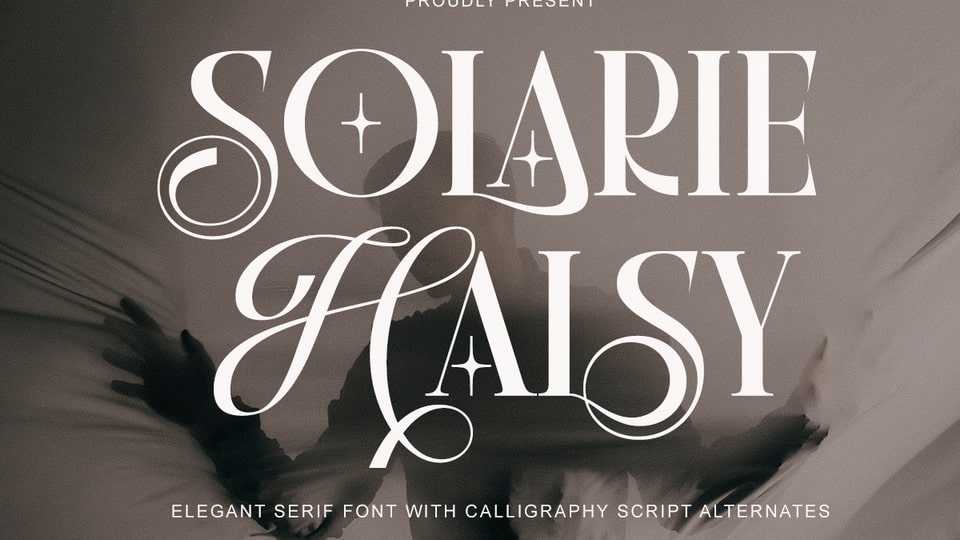
Download Solarie Halsy font, a beautiful elegant serif typeface with calligraphy script alternates. Perfect pairing of timeless calligraphy script and classy serif fonts.